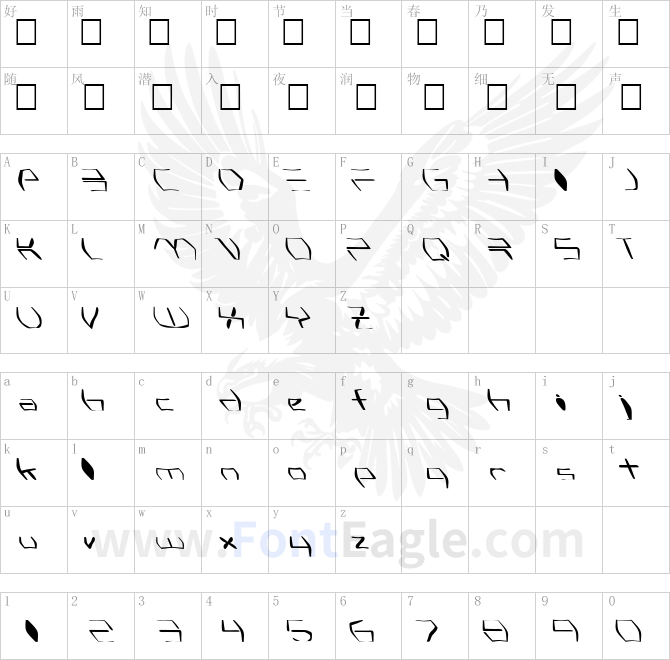
- Font name:FZ WARPED 5 LEFTY
FZ-WARPED-5-LEFTY is a great font, widely used in graphic design, single-page menu design, poster design and other fields, and is deeply loved by designers.FZ-WARPED-5-LEFTY download.